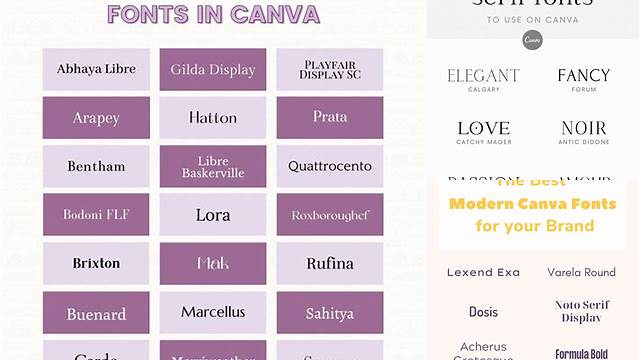
Canva's Best Modern Serif Fonts: A Complete Guide
Hey guys! Let's dive into the wonderful world of modern serif fonts available on Canva. If you're anything like me, you probably spend a good chunk of your time on Canva, crafting designs for everything from social media posts to presentations. And let's be honest, the font you choose can make or break your design. So, this guide is all about helping you navigate the fantastic selection of modern serif fonts that Canva offers, and how to use them effectively. We will explore what makes a serif font 'modern', why they're so popular, and give you some specific recommendations to get you started. Ready to elevate your designs with some elegant typography? Let's go!
What Makes a Serif Font 'Modern'?
Okay, so what exactly is a modern serif font? Well, it's not just about slapping a serif (those little decorative strokes at the end of letters) onto a typeface. Modern serif fonts have a distinct aesthetic that sets them apart from traditional serifs like Times New Roman or Garamond. They usually feature high contrast between thick and thin strokes, a vertical stress (meaning the thinnest parts of the letterforms are aligned vertically), and a clean, geometric feel. Think about it like this: classic serifs are like your favorite comfy, well-worn jeans – reliable and timeless. Modern serifs, on the other hand, are like a tailored suit – sharp, sophisticated, and designed to make a statement. This combination of elegance and modernity makes them a perfect choice for a variety of design projects, from branding to editorial design. These fonts often give off a sense of luxury, sophistication, and trustworthiness, all while keeping things contemporary and stylish. They’re a great way to give your design projects a professional, polished look. Many modern serif fonts also embrace a degree of minimalism, with a focus on clean lines and a less fussy appearance. This minimalist approach allows them to work beautifully in both large headlines and smaller body text, making them incredibly versatile. You will notice a sleek, streamlined aesthetic that feels fresh and current. So, when you’re browsing through Canva’s font library, keep an eye out for these characteristics: high contrast, vertical stress, and a clean, geometric appearance. These are the telltale signs of a modern serif that will elevate your designs.
One of the key distinctions of modern serif fonts lies in their design philosophy, which often reflects the broader trends in modern design. They're created to be functional and visually appealing. The best modern serif fonts strike a balance between elegance and readability, which makes them a great choice for projects where you want to capture attention without overwhelming the viewer. This makes them great for headlines, titles, and other prominent text elements where you want to make a big impact. Many designers also experiment with these fonts in long-form content, using them to inject sophistication and a touch of class into the overall aesthetic of their projects. Modern serifs can be a perfect choice for everything from luxury branding to stylish editorial designs. For example, imagine you’re creating a website for a high-end fashion brand. A modern serif font would be the perfect choice, as it would help communicate the brand’s values of elegance, sophistication, and timelessness. Similarly, in editorial design, these fonts can be used to create a sense of luxury and professionalism. So, when choosing a font, think about the message you want to convey and how a modern serif font can enhance your brand. The careful use of these fonts can set the tone of your work. It tells your audience that you are attentive to detail. Their sleek appearance also tends to lend itself well to digital design, making them a popular choice for websites, apps, and other online projects. You can also find these fonts in print designs, like magazines and brochures. Their versatility and ability to convey both sophistication and modernity make them a favorite among designers. This allows them to stand out in a competitive world. They really are a versatile bunch!
Why Use Modern Serif Fonts? Benefits
So, why should you even bother with modern serif fonts? What's the big deal? Well, the answer is simple: they bring a level of sophistication, elegance, and readability that can seriously upgrade your designs. Let's break down some of the key benefits. First off, modern serif fonts exude a sense of class and sophistication. They're perfect for projects where you want to convey a sense of luxury, professionalism, or trustworthiness. Think about high-end brands, established institutions, or anything aiming for a premium feel. Secondly, they're incredibly versatile. You can use them for everything from headlines to body text, from print to digital media. This adaptability makes them a valuable asset in your design toolkit. Thirdly, they enhance readability. The serifs can help guide the eye across the page, especially in longer blocks of text, making them easier to read. This is crucial for projects where you want to ensure your message is easily understood. By opting for a modern serif font, you immediately boost the perceived value of your brand. It tells your audience that you care about aesthetics. It gives you a professional feel. And finally, these fonts are trending right now. Their inherent versatility and ability to work in a variety of design scenarios is a major advantage. The impact of a well-chosen font should never be underestimated, and a modern serif font could be the very element that helps elevate your work to the next level. Whether you're aiming for a classic look, a contemporary feel, or a mix of both, there's a modern serif font out there for you.
Think about it: the right font can instantly elevate your design. A modern serif font can add a touch of sophistication, which makes it ideal for a range of projects. They can work wonders for your brand identity, making it feel more polished and premium. Moreover, they are super readable. This readability is vital for long-form content, like articles or reports. They often make your work look more professional. Modern serifs are versatile and can be used across different media, from website design to print materials. They blend elegance with modernity, which is great. They help to ensure that your message will be easily understood, leaving a lasting impression on your audience. They help make the design work. So, there you have it. They're more than just pretty faces; they're design powerhouses.
Top Modern Serif Fonts on Canva: Our Picks
Alright, now for the fun part: the recommendations! Here are some of my favorite modern serif fonts available on Canva, along with some tips on how to use them effectively. Keep in mind, this is just a starting point, and you should always experiment and find the fonts that best suit your project.
- Playfair Display: This is a classic for a reason, guys. Playfair Display is a beautiful, high-contrast font that's perfect for headlines and titles. It has a slightly vintage feel, which is great for adding a touch of elegance and sophistication. It works really well in larger sizes, which allows you to show off its gorgeous curves and details. Use it for anything from website headings to stylish social media posts. You can pair it with a simple sans-serif font for body text to create a visually appealing and balanced design. It is a beautiful font.
- Lora: Lora is a well-balanced, contemporary font that's super readable, making it a great choice for both headlines and body text. It has a slight contrast and a friendly feel, which is perfect for projects that require both elegance and approachability. This font is incredibly versatile, so try it in various design settings. Its readability makes it ideal for projects where the content is king. This is a very good font choice.
- Merriweather: Another great option for readability, Merriweather is a sturdy and reliable font with a slightly old-fashioned feel. It's designed to look good on screens, which makes it a fantastic choice for digital projects. It pairs wonderfully with other fonts, such as Open Sans or Lato, for a versatile and effective design. Try it in different sizes and weights to find the perfect fit for your project. It’s a solid and dependable choice.
- Cormorant Garamond: This is a revival of the classic Garamond, but with a modern twist. Cormorant Garamond has a timeless elegance and is incredibly versatile, making it suitable for a wide range of projects. It works exceptionally well in both print and digital designs, and its elegant serifs add a touch of sophistication to anything. Use it to design some fancy stuff.
- Butler: This is a modern take on the classic Bodoni font, and it's an absolute showstopper. With its high contrast and elegant curves, Butler is perfect for headlines and display text. It has a luxurious feel that's perfect for branding and high-end design projects. Use it sparingly for maximum impact. It is really good.
Remember to make your designs shine by keeping these in mind: Always consider your overall design goals. Always focus on the design. Try different approaches. Experiment and have fun! It is always a good idea to research what fonts are trending. This will help keep your work fresh. Don’t be afraid to take a risk! You can also always explore other font combinations to add depth and visual interest to your project. With a little practice and creativity, you can master the art of modern serif fonts on Canva. The right font can do wonders for your design projects. You will surely make it look great. Happy designing, you guys!